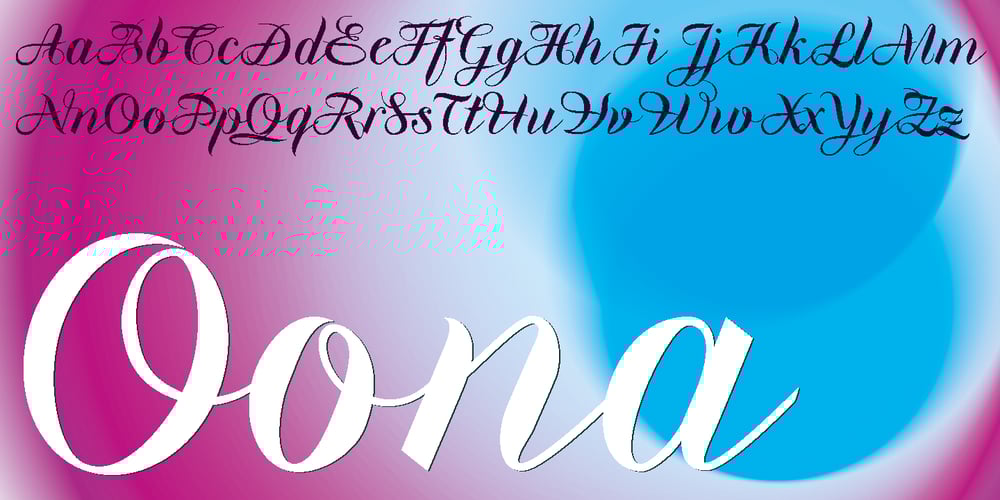
Oona
Oona font
Oona Font Family was designed by Gert Wiescher and published by Autographis. Oona contains 1 styles and family package options. Oona is a joining script with that classic, elegant “Old England” touch.